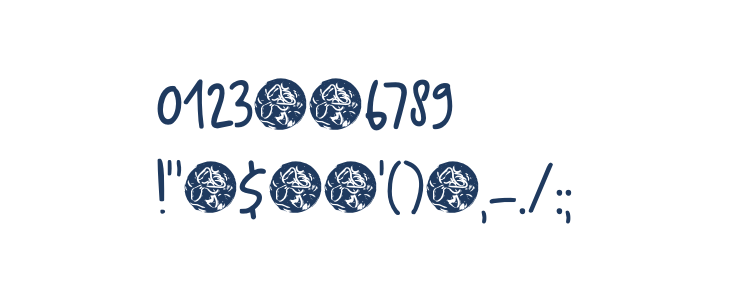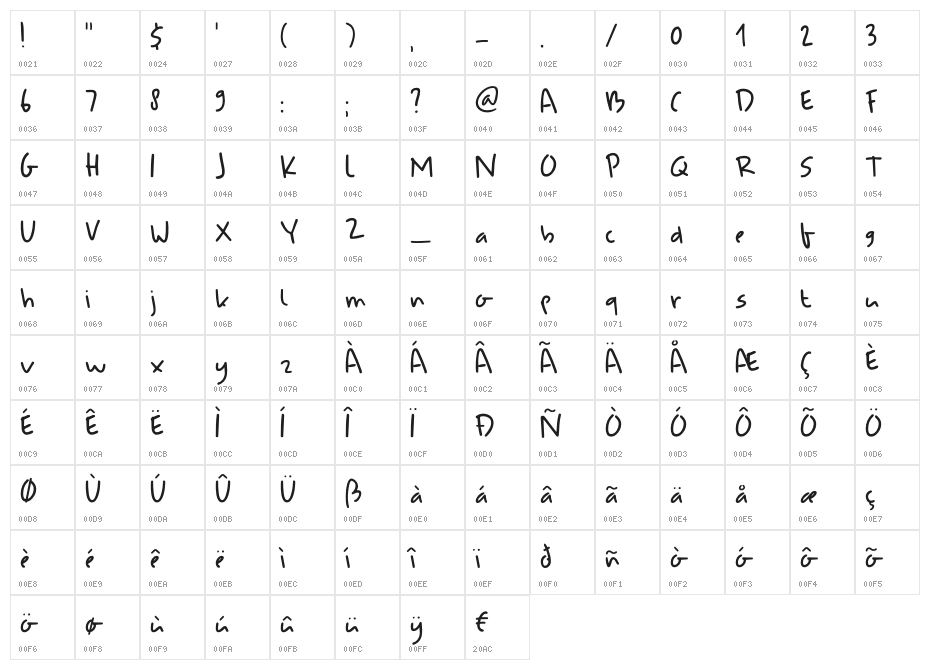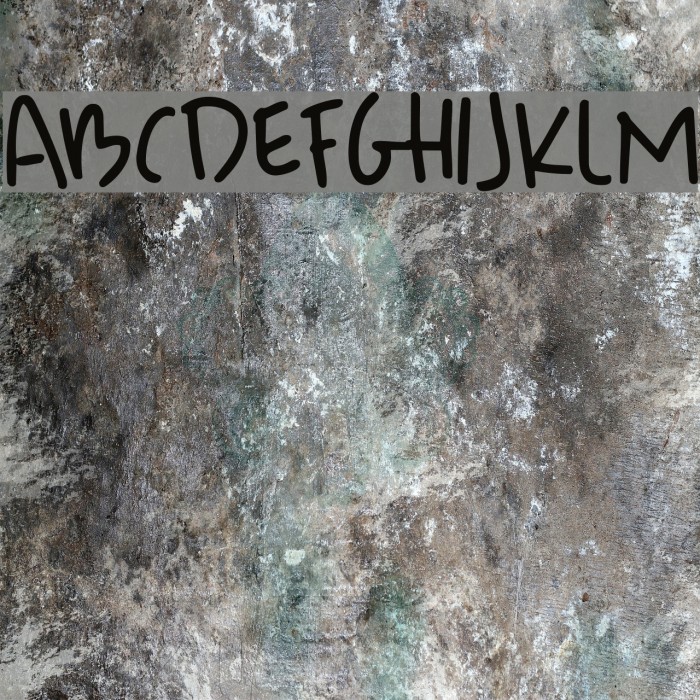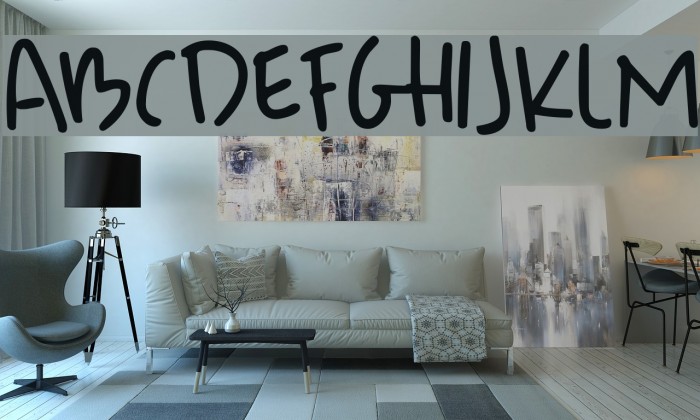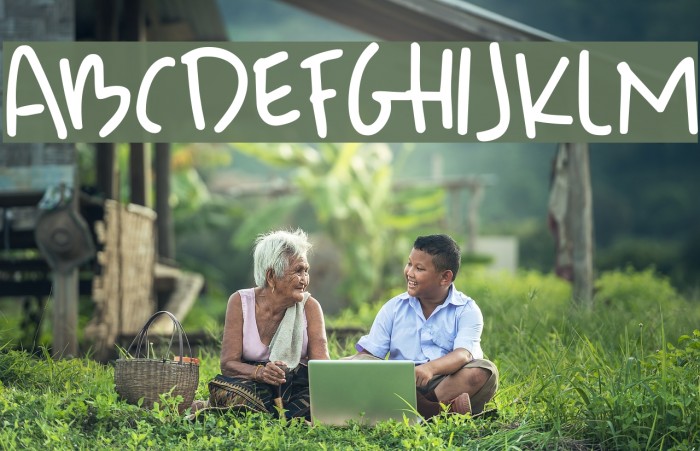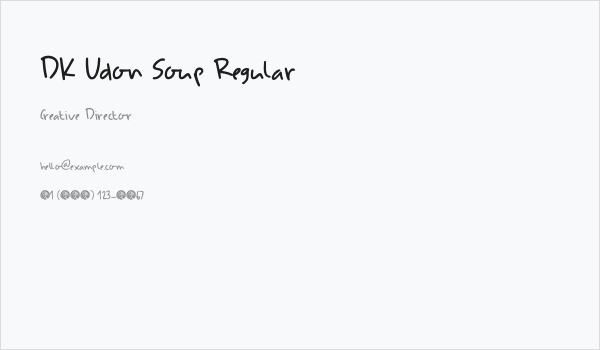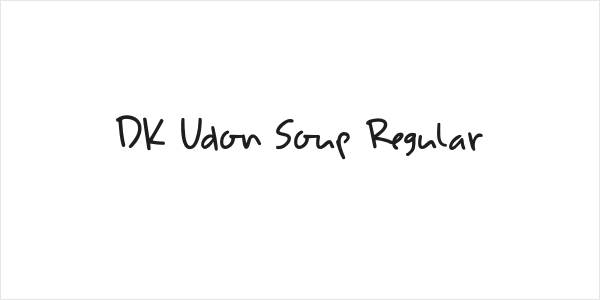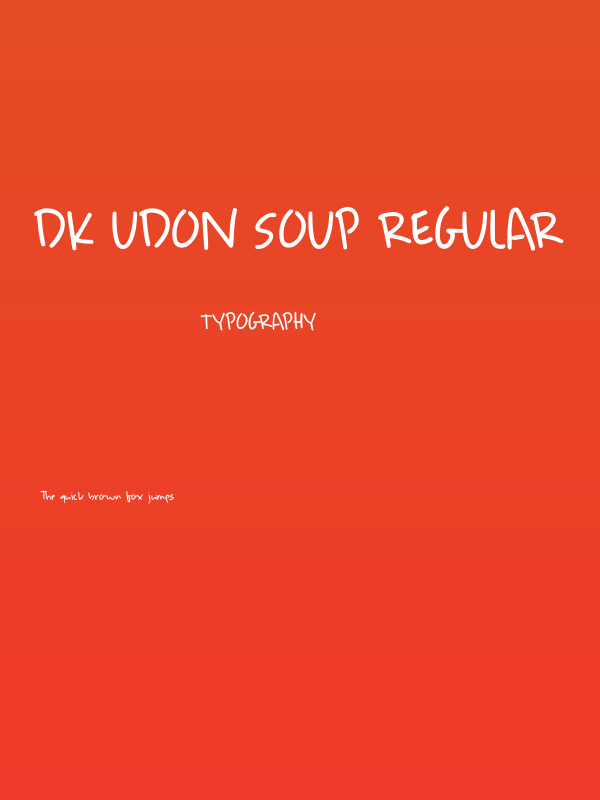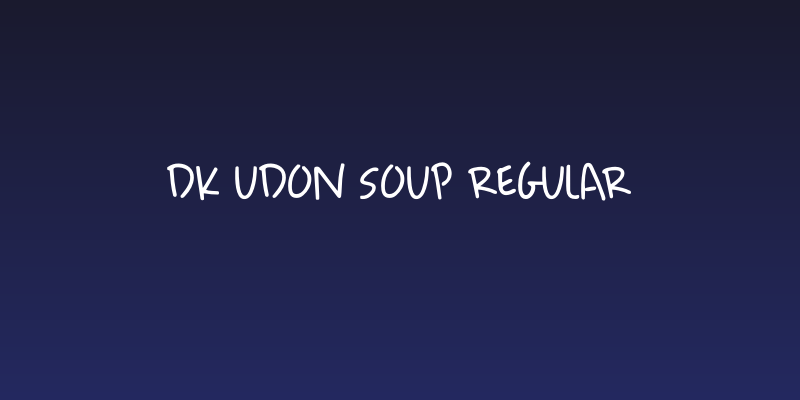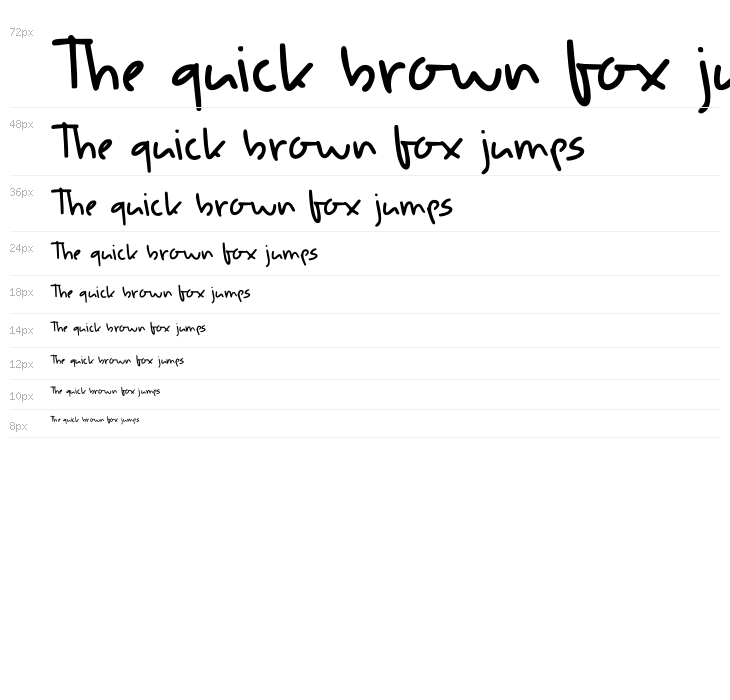
DK Udon Soup Regular Font
DK Udon Soup Regular Description
This font features a playful and casual handwritten style, characterized by its smooth, rounded strokes and slightly irregular letterforms. The uppercase and lowercase letters maintain a consistent flow, giving it a friendly and approachable appearance. The numerals and special characters are designed with the same whimsical touch, making them blend seamlessly with the alphabet. The overall design is informal yet legible, suitable for projects that require a personal or creative touch.
| Use Case | Logos, Headlines, Informal Text |
| Proposed Projects | Ideal for greeting cards, children's books, casual branding, and creative social media graphics. |